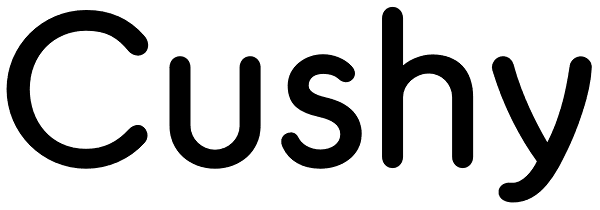
Cushy
Cushy is a versatile sans serif font that’s stuffed with plush swashes and unique alternates. But it’s not limited to display use only. Cushy is well suited for text or display applications. Cushy’s large “x” height, square proportions, and generous...